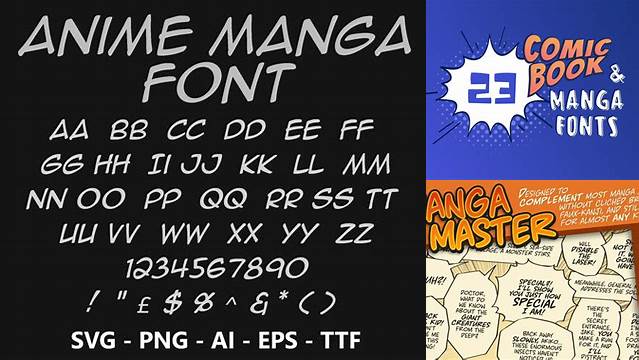
Free Manga Fonts: Download & Elevate Your Comics
Hey guys! Ready to dive into the awesome world of manga and comics? One of the coolest things about creating your own manga is finding the perfect fonts to bring your story to life. The right font can totally set the mood, whether you're going for a super dramatic shonen battle or a sweet slice-of-life vibe. Finding a manga font name that clicks with your art style is super important. And the best part? There are tons of free options out there just waiting for you to download them. This guide will walk you through everything you need to know about finding, downloading, and using some killer free manga fonts. So, let's get started and make your manga pop!
Why Manga Fonts Matter
Alright, so why bother with specific manga fonts instead of just using any old font? Well, imagine a comic book without those unique word balloons and sound effects. It just wouldn't feel right, would it? Manga fonts are designed to do exactly that – to make your comic feel like, well, a comic! They are created to match the art style. Manga fonts give that specific feel. These fonts are designed with specific things in mind. They often have a hand-drawn look that mimics the style of traditional Japanese calligraphy or the lettering found in actual manga books. This isn't just about looking cool (though it totally does!). It's about making the text blend seamlessly with your artwork, enhancing the reading experience, and making your comic feel professional. Using the right font is a subtle but powerful way to communicate tone, emphasize certain words, and guide the reader's eye. Consider the difference between a bold, energetic font used for a fight scene and a softer, more elegant font for a romantic moment. See? It's all about the details!
Think about it this way: Would you use a formal font for a fun, action-packed adventure? Probably not! The font needs to match the energy of the story. That's why finding the right manga font name is so important. The correct font will improve the visuals. The proper font will match the style of the art. Getting the right font will increase the reader's enjoyment. Plus, a unique font can help your comic stand out. In a world full of content, every detail matters. So, don't underestimate the impact of a great font. Trust me, the right font can take your comic from amateur to awesome in no time. So, let's start looking for the perfect manga font for your projects.
Where to Find Free Manga Fonts
When searching for the perfect manga font name, make sure to read the descriptions carefully. The name might not always tell you everything! Look for fonts specifically designed for comics or with features like built-in word balloons or sound effects. Also, check for any special characters or ligatures that will enhance the look of your text. Take your time, explore different sites, and don't be afraid to experiment! You'll find the perfect font for your comic. This is where you can discover a manga font that works for your project.
Popular Manga Font Names and Styles
Alright, let's talk about some of the most popular and effective manga font names and styles you can use. Knowing a few of these will help you pick the right fonts for your projects. There are a lot of different options to discover. Here are some great styles to start with!
- Hand-Drawn Fonts: These are the most common and recognizable styles. They mimic the look of traditional calligraphy and handwriting, giving your comic an authentic feel. Look for fonts with slightly uneven strokes and a casual look. These are great for dialogue, captions, and sound effects.
- Bold and Energetic Fonts: If you are working on a shonen-style manga with action-packed scenes, you'll want a font that conveys energy and excitement. Choose fonts with thick strokes and a strong presence. These fonts can be perfect for battle cries, impactful sound effects, and intense dialogue.
- Clean and Modern Fonts: For a more modern or seinen-style manga, consider cleaner, more readable fonts. These might still have a hand-drawn feel, but they'll be more refined and balanced. These are perfect for longer passages of dialogue or for a more polished look.
- Specialty Fonts: Some fonts are specifically designed for sound effects, word balloons, or other comic-related elements. Look for fonts that include built-in bubbles, bursts, or other visual effects. These can save you a lot of time and make your comic look even more professional.
When choosing a manga font name, consider the mood and tone of your comic. Is it a lighthearted comedy, a dark thriller, or an epic fantasy? The font should match the overall style of your artwork and the story. For example, a cute, bubbly font might be perfect for a slice-of-life manga, while a bold, jagged font would suit a horror comic. Remember, you can also mix and match fonts to create different effects. You might use a hand-drawn font for dialogue and a bold font for sound effects. The possibilities are endless! So don't be afraid to experiment and find what works best for you. Look for a manga font that matches your style.
So, there you have it! You're now well-equipped to find and use some amazing free manga font names for your comic projects. Remember, the right font can make a huge difference in the look and feel of your manga. So, take your time, explore different options, and have fun with it! Happy creating, and may your comics be filled with awesome fonts and engaging stories!